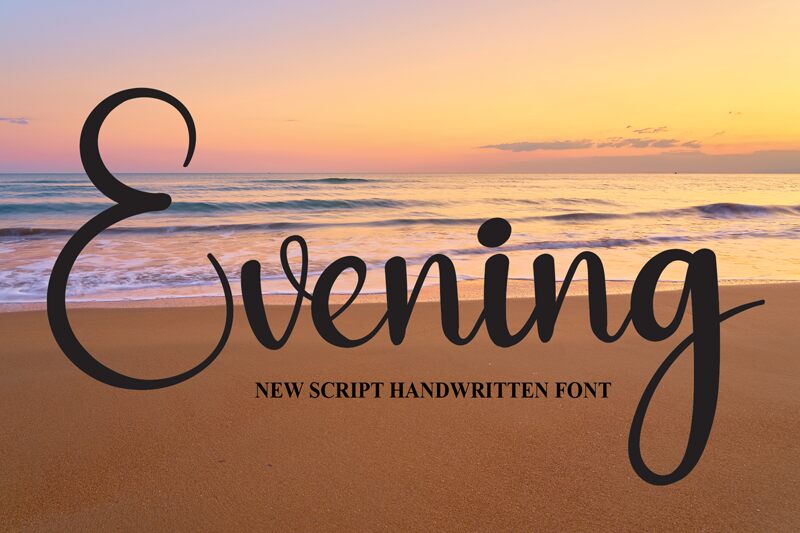
Evening
Evening is a captivating handwritten font crafted by designer Andi Moz. Its elegant, flowing strokes evoke a sense of warmth and sophistication, making it an ideal choice for a variety of design applications.
From wedding invitations and greeting cards to branding and editorial layouts, Evening's graceful aesthetic lends an air of refined charm to any project. Its versatility shines through in its ability to convey both formal and casual vibes, seamlessly adapting to diverse design needs.
With its distinctive flair and timeless appeal, Evening promises to elevate the visual impact of any design endeavor.